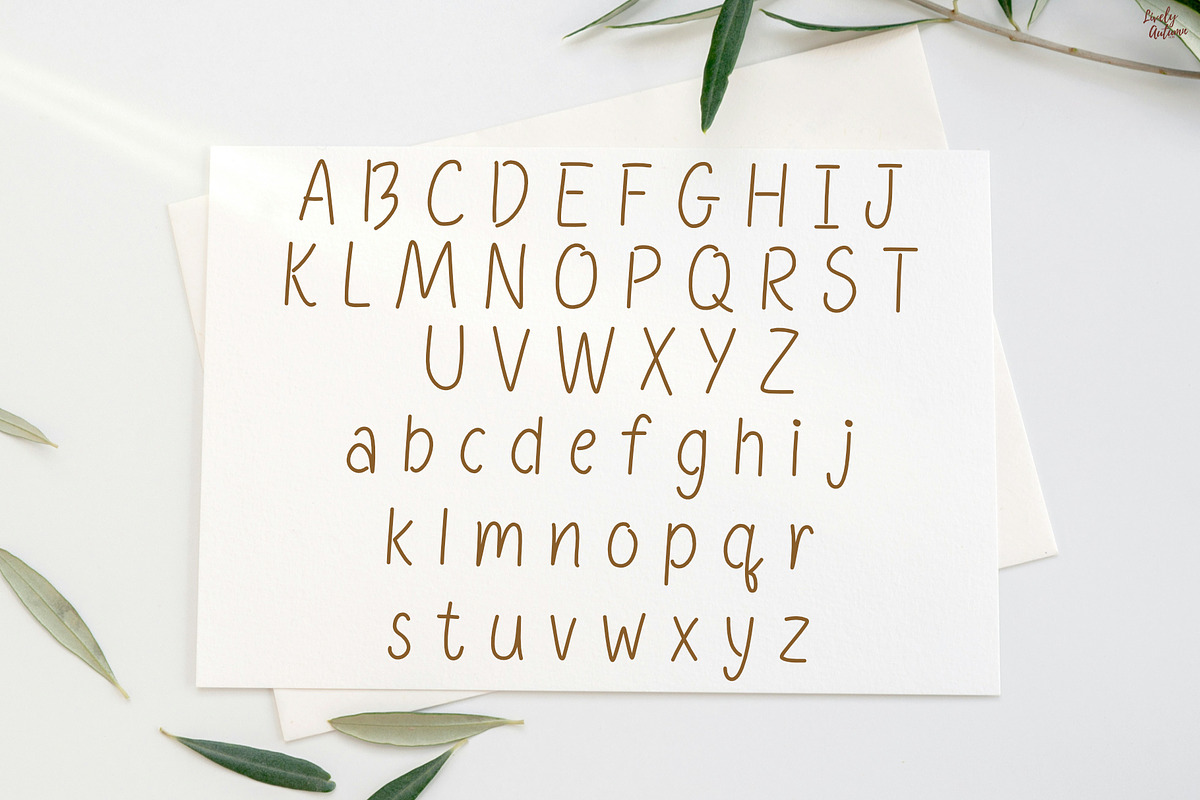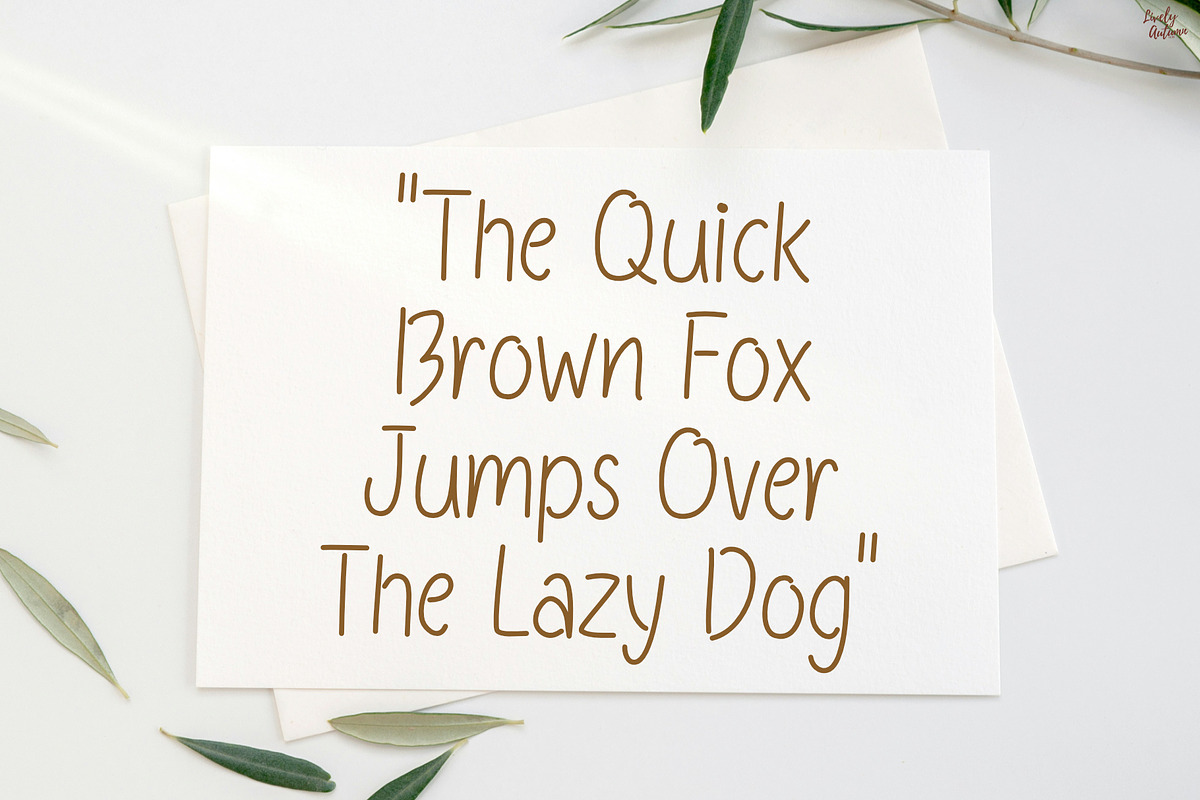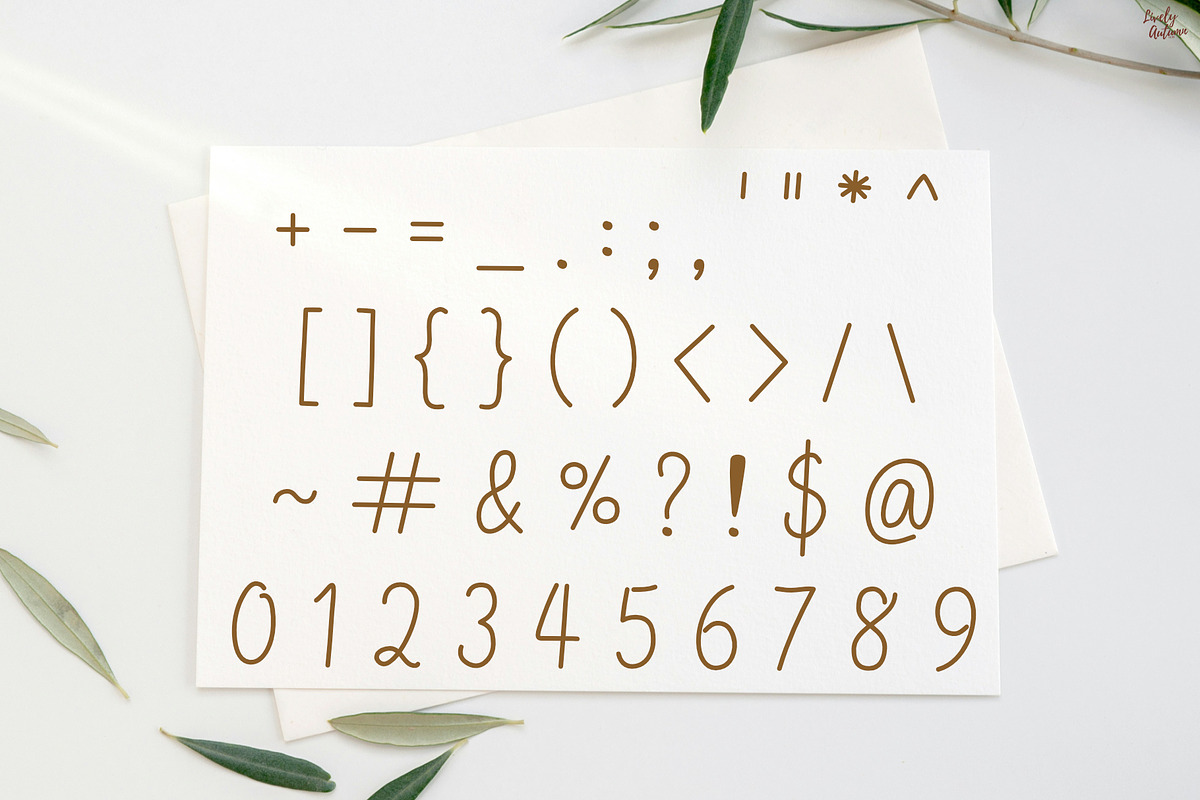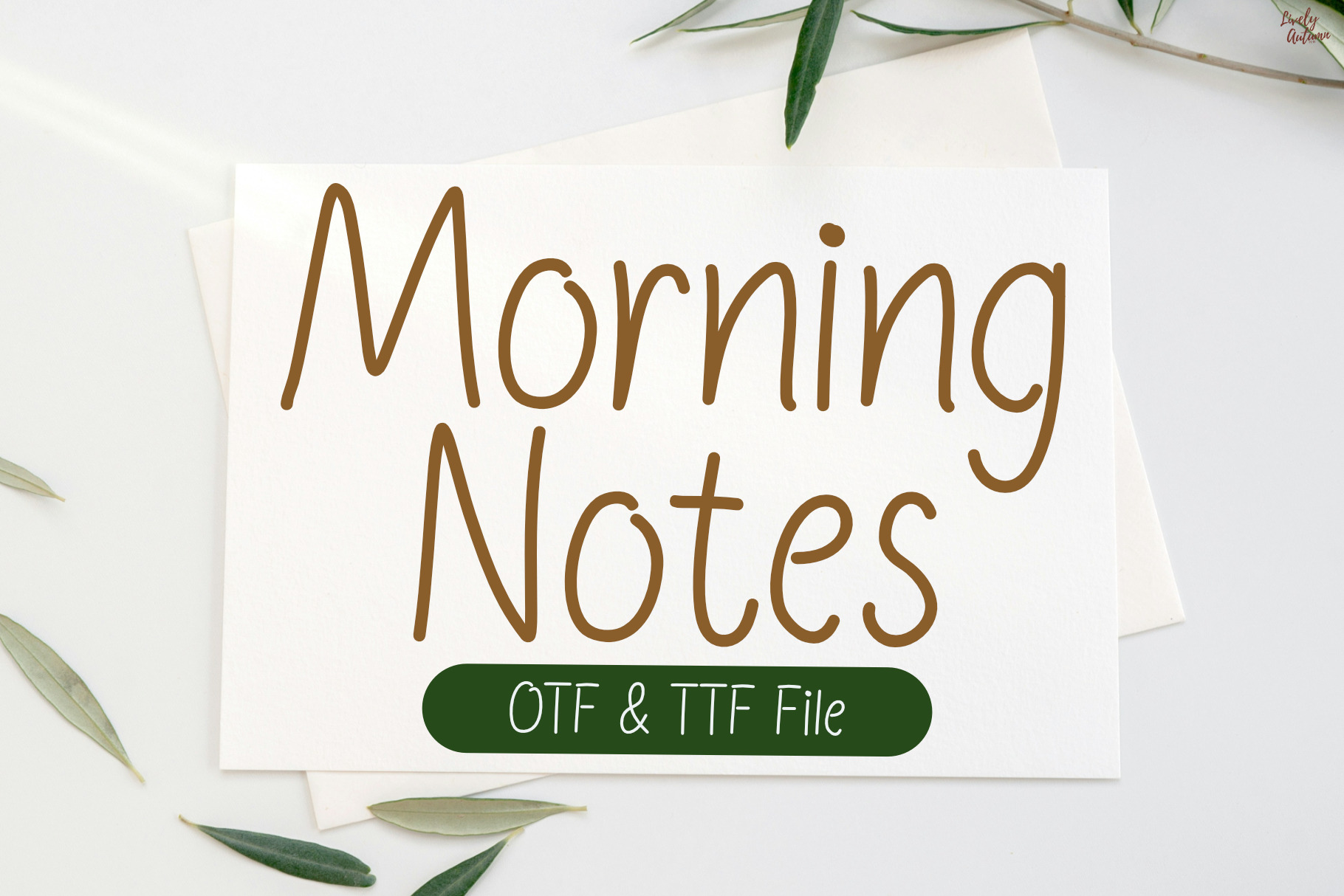
Morning Notes | Handwritting Font
Morning Notes is a sans serif handwritten font. Perfect for your personal projects and various projects. From invitations to posters, social media graphics, journals, stickers and much more.
- Font includes: uppercase, lowercase, numbers, and punctuation